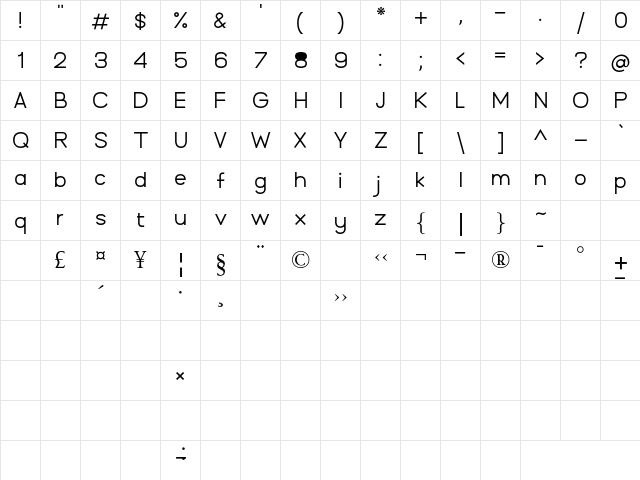
Branding Pro Light
Design Context for Branding Pro Typeface
Branding Pro takes a measured approach to typography — its balanced proportions and neutral character make it a reliable workhorse for both digital and print work. The delicate stroke weight brings airiness and refinement to layouts.